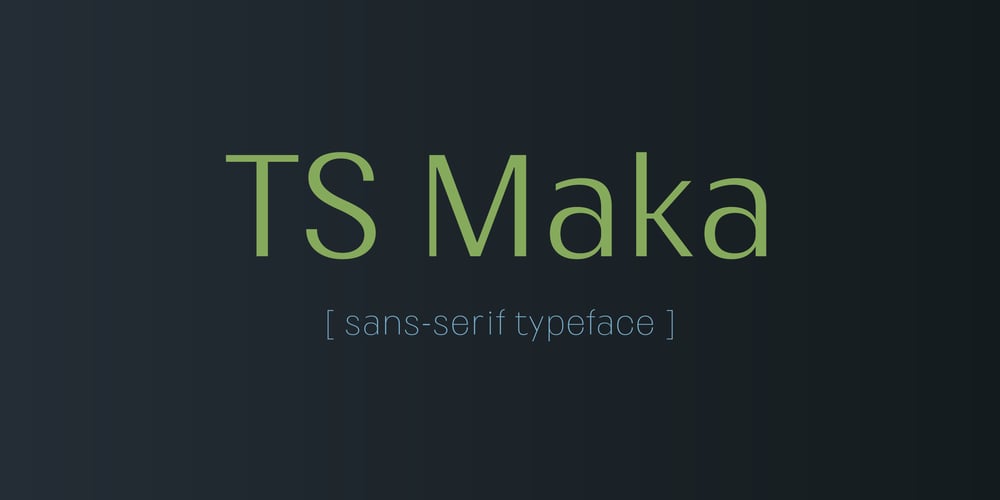
TS Maka Font Family was designed by Vitaliy Tsygankov and published by Vitaliy Tsygankov. TS Maka contains 8 styles and family package options. TS Maka is typeface with high contrast and strict character. The font was created in 2019.